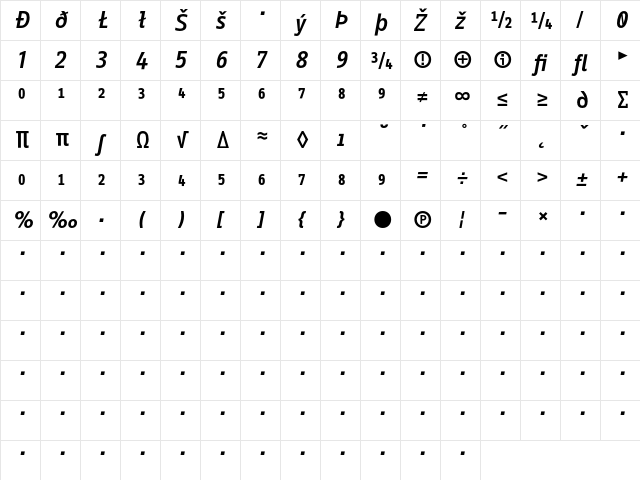
InfoOffice BoldItalicExpert
Design Context for InfoOffice Typeface
InfoOffice is a composed and adaptable typeface that performs quietly and consistently across a wide range of design contexts. The slanted form adds forward momentum and visual energy. Its bold stroke weight gives it real presence on the page.
Pro Tip: Use InfoOffice for emphasis, pull quotes, and subheadings where its slanted energy can add rhythm to the layout.